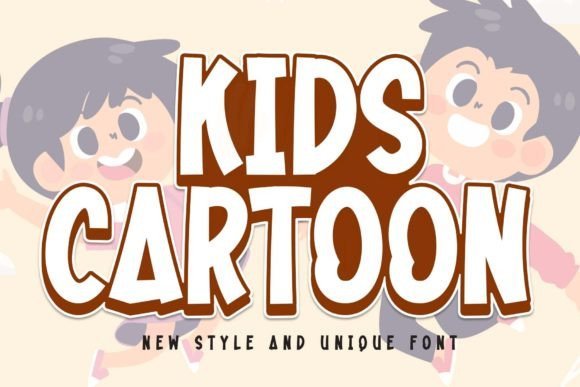
Unleash the Fun in Your Designs with Kids Cartoon Font
Who hasn’t been inspired by a bright, colorful cartoon as a child? The whimsy and imagination that fills those animated worlds can be just the spark we need to bring our own creative ideas to life. For designers, finding the perfect font to capture that playful essence can be a challenge.
Enter the Kids Cartoon Font, a display font designed to add a touch of fun and coolness to any project. This versatile font is perfect for creating engaging graphics, logos, and titles that are sure to capture the attention of kids and adults alike. Whether you’re working on a children’s book, a family-friendly video game, or a marketing campaign for a kids’ brand, the Kids Cartoon Font is a valuable addition to your design toolkit.
Kids Cartoon Font Key Features
- Unique Characteristics: The font features playful, rounded edges, and whimsical letterforms, making it suitable for children’s content and educational materials.
Kids Cartoon Font Review
Overall, I think the Kids Cartoon Font is a fun and playful choice for any project targeting a younger audience. ✨ Its whimsical design and bold lines make it perfect for creating eye-catching titles and headings.
One of the things that stands out about this font is its versatility. ✨ It can be used in a variety of contexts, from children’s books and educational materials to websites and apps.
Here are some of the key features that make this font stand out:
- Fun and playful design
- Bold lines and bright colors
- Perfect for titles and headings
- Works well in a variety of contexts
- May not be suitable for formal or professional projects
- Can be overwhelming if used too extensively
- May not be the best choice for text-heavy content
- ⚠️ Limited font sizes and styles
Overall, I think the Kids Cartoon Font is a great choice for anyone looking for a fun and playful font for a children’s project. Just be sure to use it judiciously and balance it with more traditional fonts to avoid overwhelming the reader.
Use the Kids Cartoon Font to add a playful touch to your designs, such as:
- Children’s book covers
- Party invitations
- Cartoon characters
The Kids Cartoon Font is perfect for designs that require a fun and playful tone, such as:
- Children’s educational materials
- Toy packaging
- Game labels
Alternatives to Kids Cartoon Font
Comic Sans
Comic Sans is a highly legible sans-serif font that is often used in informal settings. It is a popular alternative to Kids Cartoon Font, but it may be too casual for formal or professional designs. Use Comic Sans when you need a friendly and approachable tone, but be aware that it can be overused and may come across as unprofessional.
Comparison to Kids Cartoon Font: Comic Sans is more straightforward and less playful than Kids Cartoon Font, but it still has a similar casual feel.
Pacifico is a beautiful, modern script font that is perfect for creating a sense of elegance and sophistication. It is a good alternative to Kids Cartoon Font when you need to add a touch of luxury or whimsy to your design. Use Pacifico when you want to convey a sense of high-end quality or creativity.
Comparison to Kids Cartoon Font: Pacifico is more refined and less childlike than Kids Cartoon Font, but it still has a playful and creative feel.
Great Vibes is a fun, energetic script font that is great for creating a lively and engaging atmosphere. It is a good alternative to Kids Cartoon Font when you need to add a sense of excitement or adventure to your design. Use Great Vibes when you want to convey a sense of enthusiasm or playfulness.